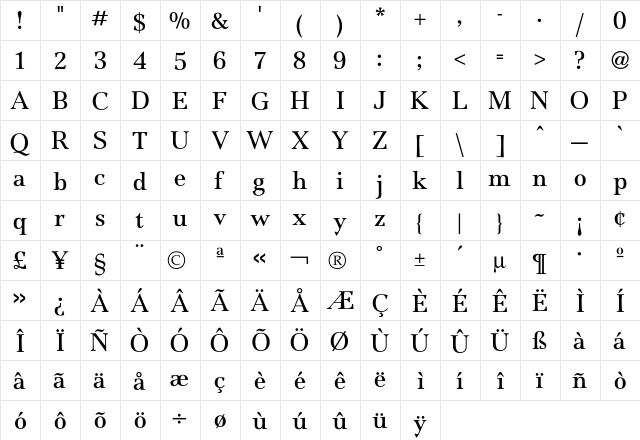
Jamille Book
Design Context for Jamille Typeface
Jamille offers clean, dependable letterforms without strong stylistic allegiance, making it a practical choice for designers who need flexibility.
Pro Tip: Use Jamille in both headline and body roles to test its range before committing to a single application.